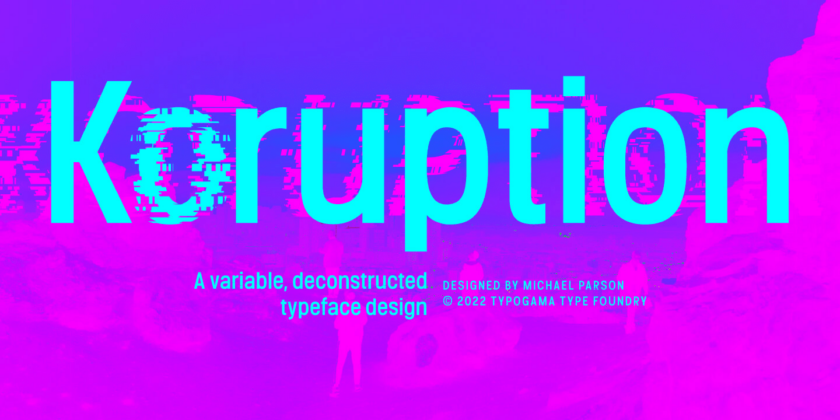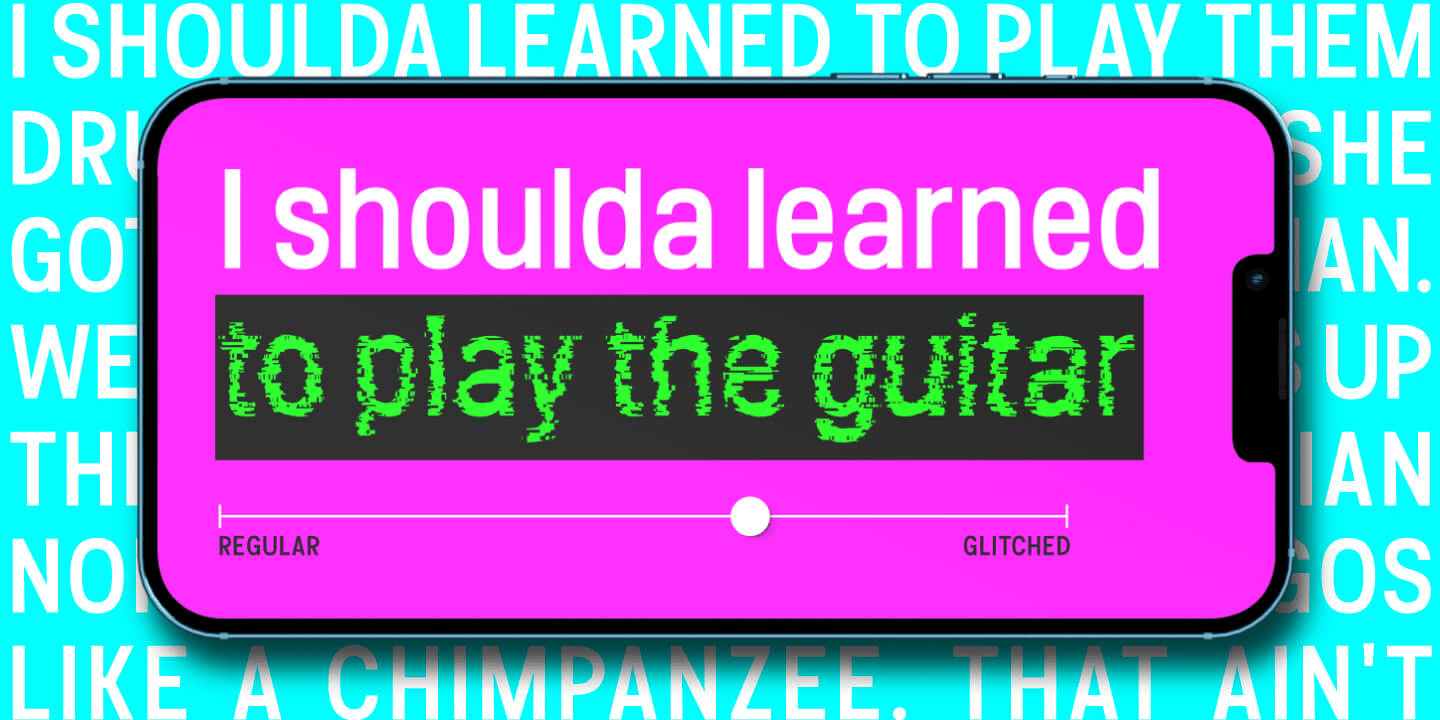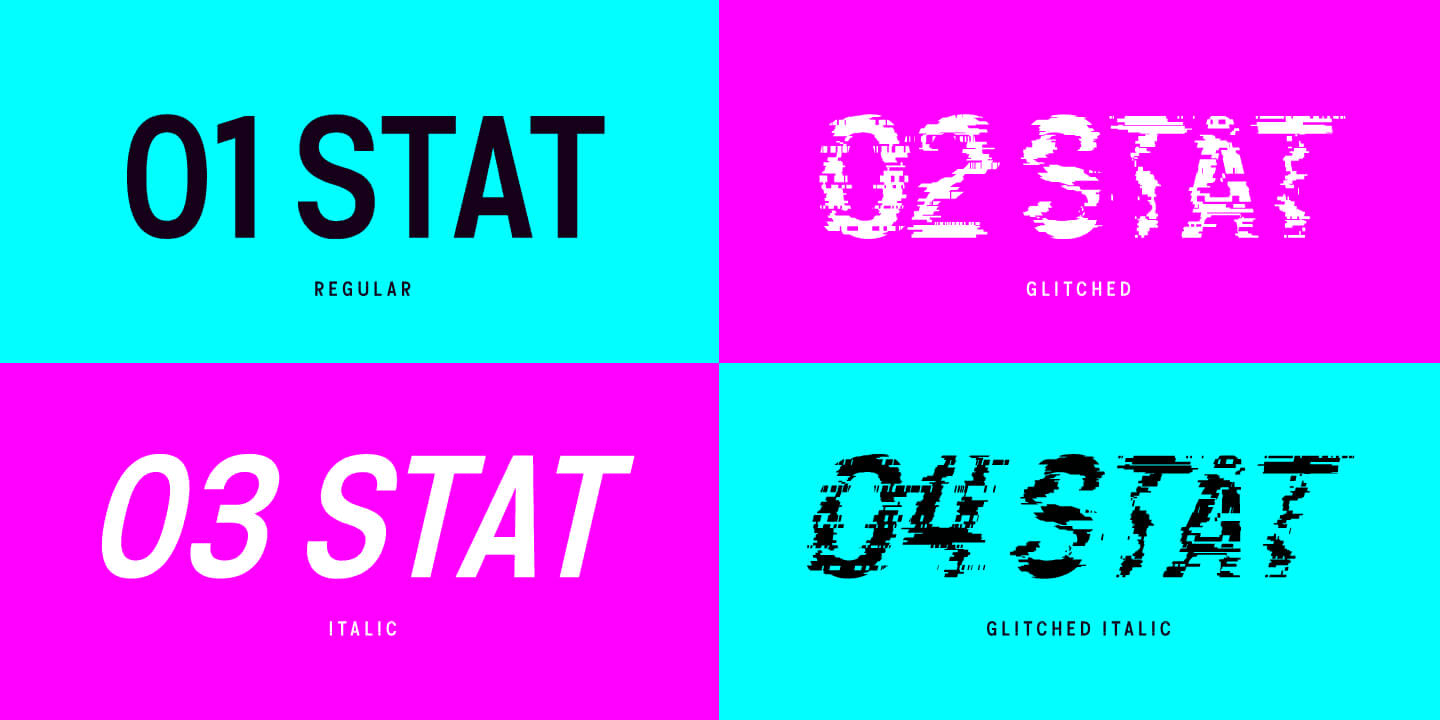
About Koruption
Koruption is a neo-grotesque typeface family that allows the user to control the amount of distortion in the letters. Thanks to variable axises, this typeface can range from a clean form to a glitched, deformed letter style. To further the effect, these…